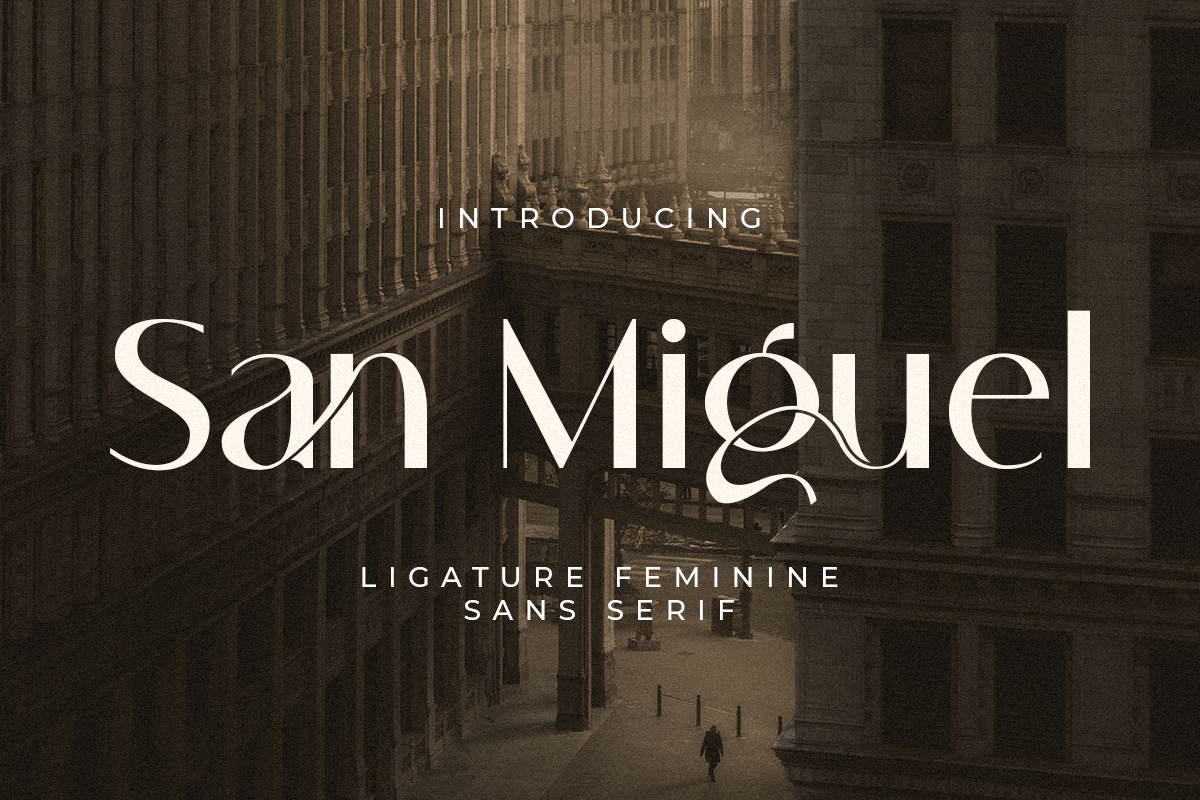
San Miguel
A Sans serif that we created special for elegant branding needs, with extra ligature and alternates in unique shape will be ready to add value of your brand. It so nice to leverage designer or product owner that need solutions to make their design look more classy and modern. And specially for San Miguel font, We prepared any ligatures, and any alternate characters to help you create unlimited variations for your creative needs.
San Miguel Sans serif font ready with:
Any options to get creative variations (combination of Alternate and Ligatures)
Preview as a inspirations that you can do with San Miguel font